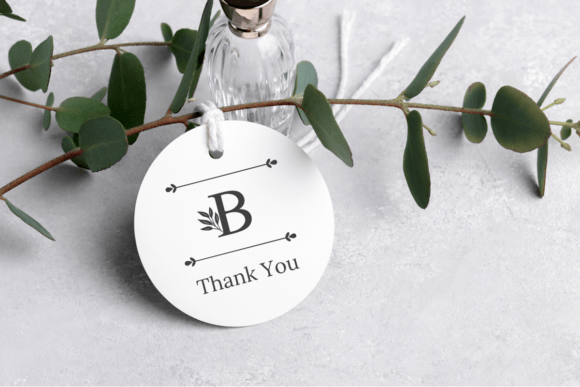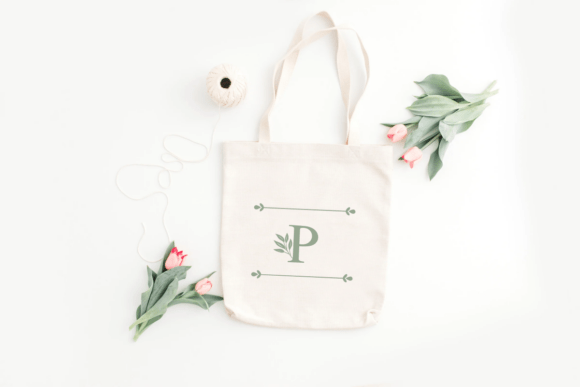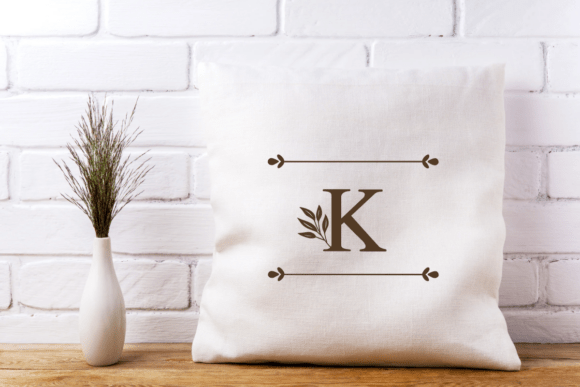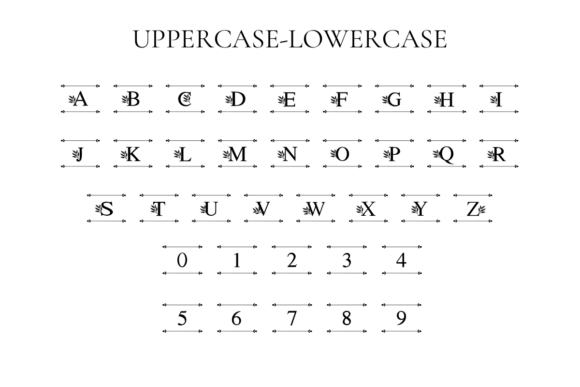
Introducing Everleaf Monogram Font: Elevate Your Designs with Elegance
Are you a designer, crafter, or DIY enthusiast looking for a font that adds a touch of sophistication to your projects? Look no further than the Everleaf Monogram Font, a stunning decorative font that can elevate your designs to the next level. In this article, we’ll explore the features and uses of Everleaf Monogram, and how it can become your go-to font for various creative projects.
What is Everleaf Monogram Font?
Everleaf Monogram is a gorgeous decorative font that boasts a unique and elegant style. Its intricate design makes it perfect for adding a personal touch to your projects, whether it’s a handwritten note, a greeting card, or a social media post. The font’s versatility allows you to use it for various design purposes, from stationery and crafts to digital content and more.
Uses of Everleaf Monogram Font
Everleaf Monogram is an incredibly versatile font that can be used for a wide range of projects, including:
- Journaling and Diary Writing: Add a touch of elegance to your journal entries or diary pages with Everleaf Monogram.
- Greeting Cards and Invitations: Create beautiful and personalized greeting cards, invitations, and party decor with this stunning font.
- Banners and Signs: Use Everleaf Monogram to create eye-catching banners and signs for special occasions or events.
- Content Creation: Add a decorative touch to your blog posts, social media content, and website headers with Everleaf Monogram.
- Mugs, Cards, and Shirts: Create unique and personalized gifts, such as customized mugs, cards, and shirts, using this versatile font.
- Stationery and Crafts: Use Everleaf Monogram to create beautiful stationery, craft projects, and DIY decor.
Why Choose Everleaf Monogram Font?
So, what makes Everleaf Monogram Font stand out from other decorative fonts? Here are a few reasons why designers and crafters love this font:
- Unique and Elegant Design: Everleaf Monogram boasts a distinctive and sophisticated design that adds a touch of elegance to any project.
- Versatility: This font can be used for a wide range of projects, from handwritten notes to digital content.
- Easy to Read: Despite its decorative nature, Everleaf Monogram is easy to read and understand, making it perfect for both personal and professional use.
Tips for Using Everleaf Monogram Font
To get the most out of Everleaf Monogram Font, here are a few tips to keep in mind:
- Experiment with Colors: Try pairing Everleaf Monogram with different colors and textures to create unique and eye-catching designs.
- Mix and Match Fonts: Combine Everleaf Monogram with other fonts to create visually appealing and interesting designs.
- Pay Attention to Size: Adjust the font size to suit your project’s needs, and don’t be afraid to experiment with different sizes and styles.